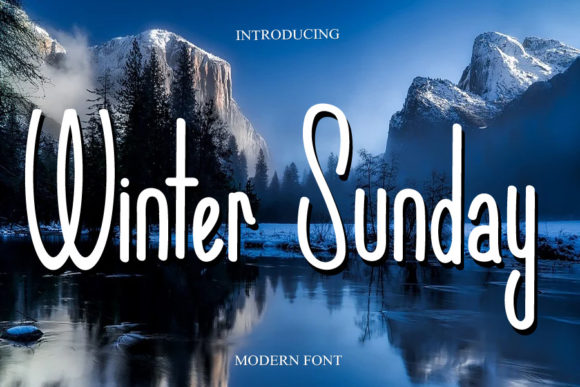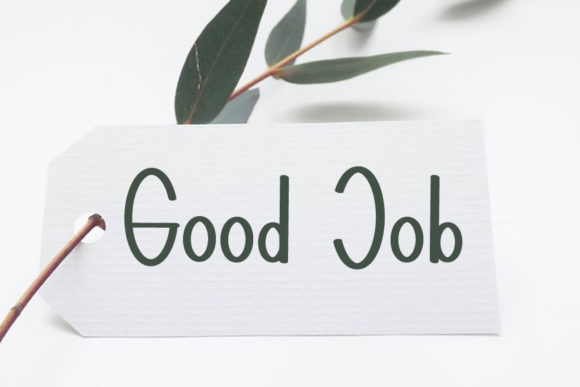
About Winter Sunday Font
Winter Sunday is a cute, simple and neat handwritten font. It was particularly crafted for those who need a beautiful and refreshing look to their designs.